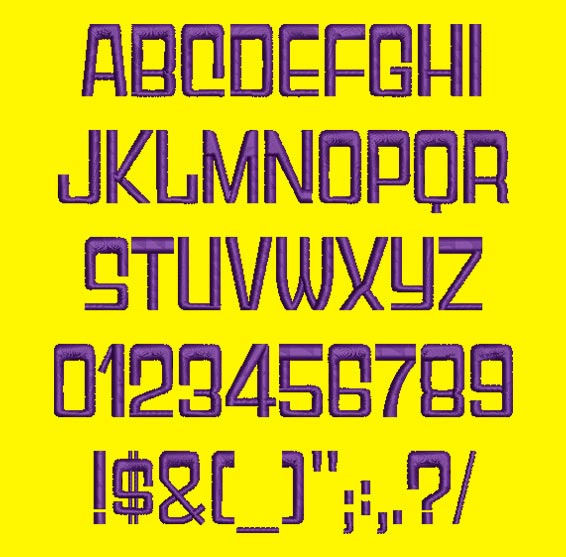
Gameshow Font - Gyparody Machine Embroidery Font Now Includes BX Format!
Title: Gyparody Machine Embroidery Font
This Gyparody font is perfect for personalizing clothes, bags, towels and linens!
This beautiful font would look amazing as a Monogram on Totes, School bags and purses!